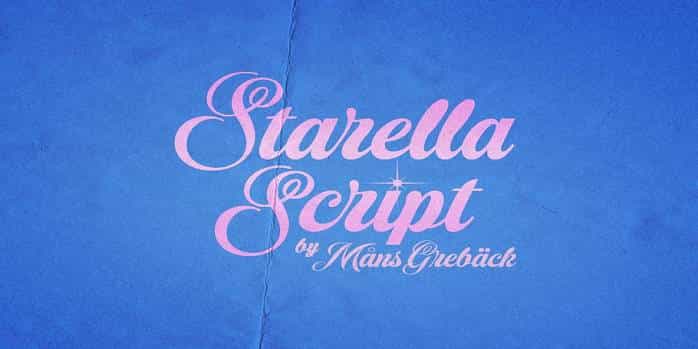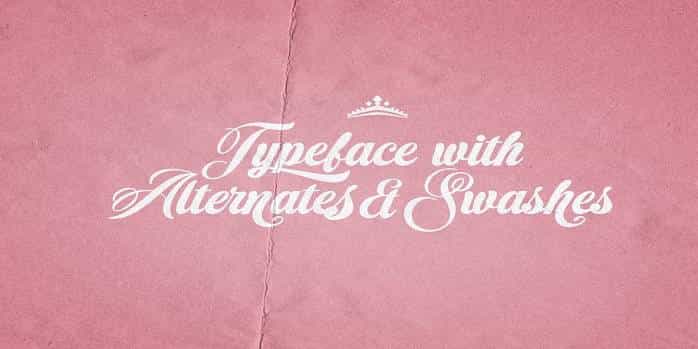
Hello there:) Starella Font was designed by Mans Greback as a decorative font. It is bold, magnificent and is perfect for grand logotypes and graphics. Starella Script also features alternate and swash letters, to provide more versatility.